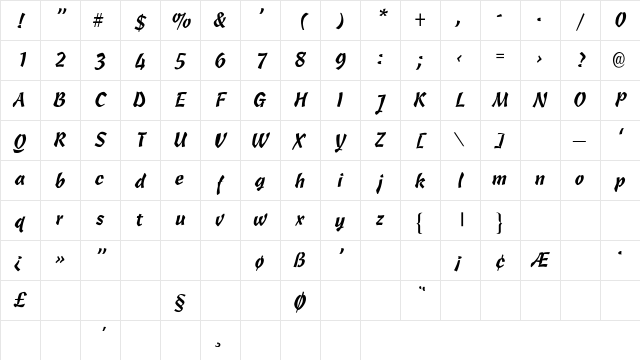
Oregon-Light is a composed and adaptable typeface that performs quietly and consistently across a wide range of design contexts. Its slender proportions lend an understated elegance to any composition.
Pro Tip: Use Oregon-Light in both headline and body roles to test its range before committing to a single application.